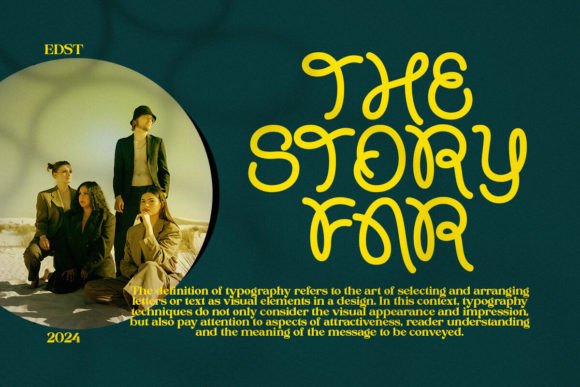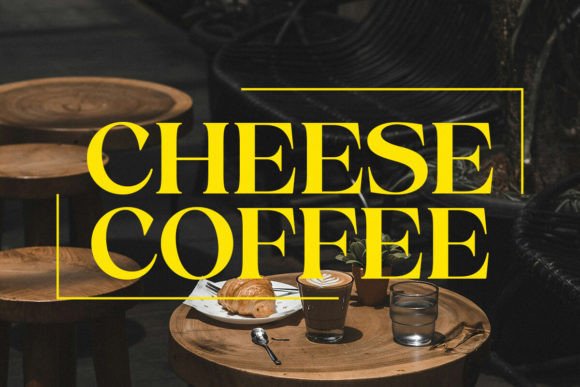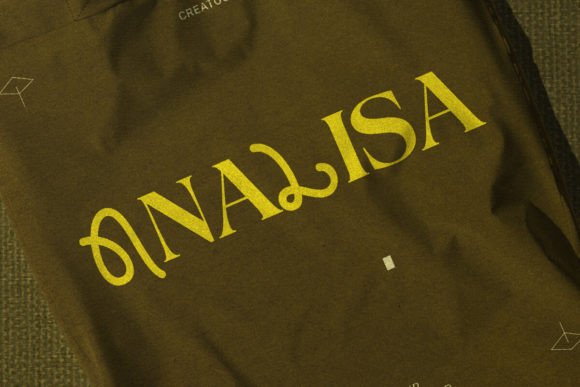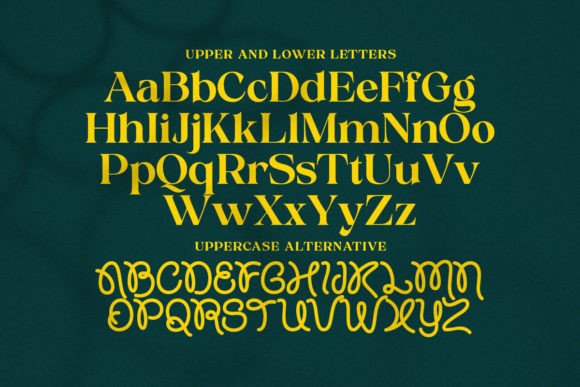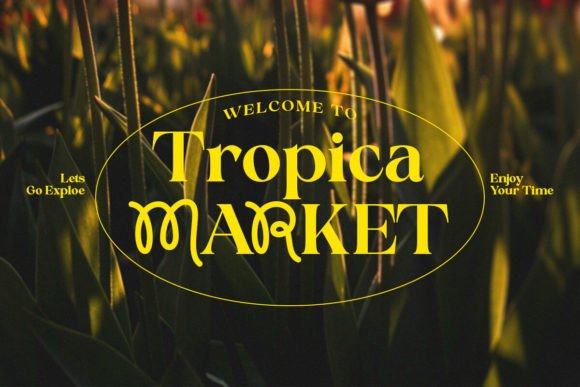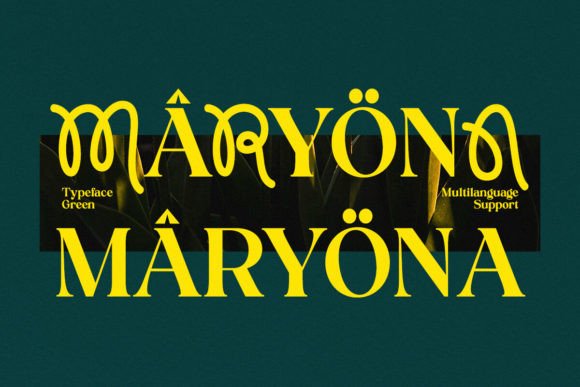
Introduction to Proxina Font
Have you ever been working on a creative project and felt like something’s missing? You’ve got the perfect idea, but it’s just not translating to your design. That’s where the Proxina Font comes in – a game-changing combination font that will elevate your high-quality designs to the next level.
Imagine being able to add a touch of sophistication to your branding materials, or a dash of whimsy to your social media graphics. With Proxina Font, the possibilities are endless. This design resource is perfect for designers who want to take their creative projects to the next level, and it’s available for free download. Whether you’re working on a logo, poster, or magazine design, Proxina Font is the perfect choice for achieving a transparent background and a truly unique look.
What sets Proxina Font apart is its ability to seamlessly blend two very different styles, creating a truly one-of-a-kind design experience. With its multilingual support and extensive character set, this font is a valuable resource for designers of all levels.
Key Features of Proxina Font
- High-quality font design suitable for creative projects and professional designs, offering a unique aesthetic.
- Features a transparent background, allowing for seamless integration with any background design or image.
- Includes a range of characters and glyphs, including Latin, Cyrillic, and Greek scripts, making it a versatile design resource.
- Unique characteristics include a modern and minimalist design style, with clean lines and elegant typography, making it perfect for branding, logos, and other creative projects.
Honest Review: Proxina Font
I recently came across the Proxina Font, a high-quality design resource that caught my attention. As a designer, I’m always on the lookout for unique and creative fonts to enhance my projects. The Proxina Font is a great addition to any design arsenal, offering a fresh and modern look that’s perfect for a wide range of creative projects.
Here are some of the things that work well with the Proxina Font:
- ✨ Versatility: The font is highly versatile and can be used in various design contexts, from logos and branding to web design and print materials.
- ✨ High-quality design: The font is well-designed and features a clean, modern aesthetic that’s sure to impress.
- ⚠️ Limited character set: The font may not include all the characters you need for a specific project, although this is not a major issue.
- ⚠️ No transparent background: The font does not support transparent backgrounds, which may be a limitation for designers who need this feature.
Overall, I’m impressed with the Proxina Font and would recommend it to designers looking for a high-quality, creative font for their next project. While it may have some limitations, the font’s versatility and modern design make it a valuable addition to any design resource library.
Tips for Getting the Most Out of Proxina Font
Use the Proxina Font on a transparent background to create a clean and modern design. Experiment with different font sizes and styles to add visual interest to your design project. With its high-quality design, the Proxina Font is perfect for any creative project.
The Proxina Font is ideal for designing logos, business cards, and brochures. It’s also perfect for creating social media graphics, presentations, and documents. With its free download option, you can use the Proxina Font in your next design project without any hassle.